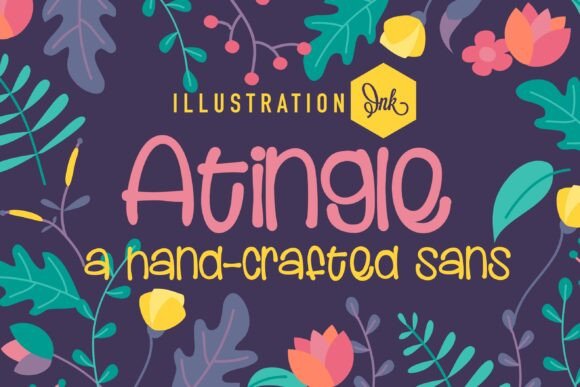
The Whimsical World of Atingle Font: A Designer’s Delight
I’ll never forget the time I was working on a wedding invitation project, and my client asked for a font that was “whimsical” and “handwritten.” I scoured the internet, tried countless fonts, but nothing seemed quite right. That was until I stumbled upon Atingle Font. This charming, hand-crafted font has been a game-changer for my design projects, and I’m excited to share its magic with you! ✨
A Personal Review of Atingle Font
• ✨ Unique, hand-written print with no descenders, giving it a distinctive look
• ✅ Light version included, perfect for subtle designs or pairing with bold elements
• ✨ OpenType features, including glyphs and stylistic alternates, for added creativity
While Atingle Font is an excellent choice for many projects, there are a few things to keep in mind: 🤔
• ⚠️ Limited use of punctuation marks, which can be a bit restrictive for some designs
• ⚠️ Not ideal for body text or long paragraphs, as it can be a bit too whimsical for reading
The Backstory of Atingle Font
Atingle Font was designed by a talented typographer who wanted to create a font that captured the essence of handwritten writing. Inspired by the imperfections and quirks of human handwriting, Atingle Font is a unique and charming addition to any design project. The designer spent countless hours crafting each letter and glyph to ensure that the font was both legible and visually appealing.
Q: What is Atingle Font?
A: Atingle Font is a hand-crafted font designed to look like it was written by hand. It’s perfect for invitations, greeting cards, and other creative projects.
Q: Is Atingle Font available in different weights or styles?
A: Yes, Atingle Font comes in a light version, which is perfect for subtle designs or pairing with bold elements.